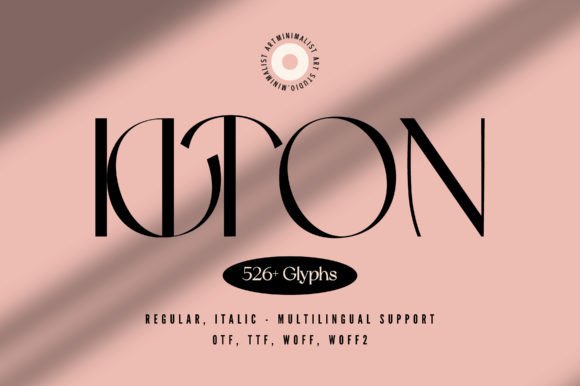
Introducing Kiton, the epitome of elegance and sophistication in the world of fonts. Created by the talented team at Minimalistartstudio, this sans-serif typeface is designed to captivate and inspire. With its sleek and minimalist design, Kiton is the perfect choice for those seeking to make a lasting impression with their projects.
When it comes to crafting a visually stunning website, Kiton takes center stage. Its clean lines and smooth curves effortlessly enhance the overall aesthetic, creating a visually appealing experience for your users. Whether you're designing a portfolio, a blog, or an online store, Kiton's versatility shines through, ensuring that your website stands out from the crowd.
But Kiton doesn't stop at web design. It also excels in the world of branding. If you're looking for the best font for an elegant logo, look no further. Kiton's timeless aesthetic exudes confidence and refinement, making it the perfect choice for businesses and individuals who strive for excellence. With its sophisticated charm, Kiton will elevate your logo to new heights, leaving a lasting impression on your audience.
In addition to web design and branding, Kiton is also a fantastic choice for editorial content. Whether you're creating a magazine, a book, or even a blog post, Kiton's smooth and legible characters ensure that your words are beautifully displayed on the page. Its versatility allows you to convey any emotion or message with ease, captivating your readers and keeping them engaged from start to finish.